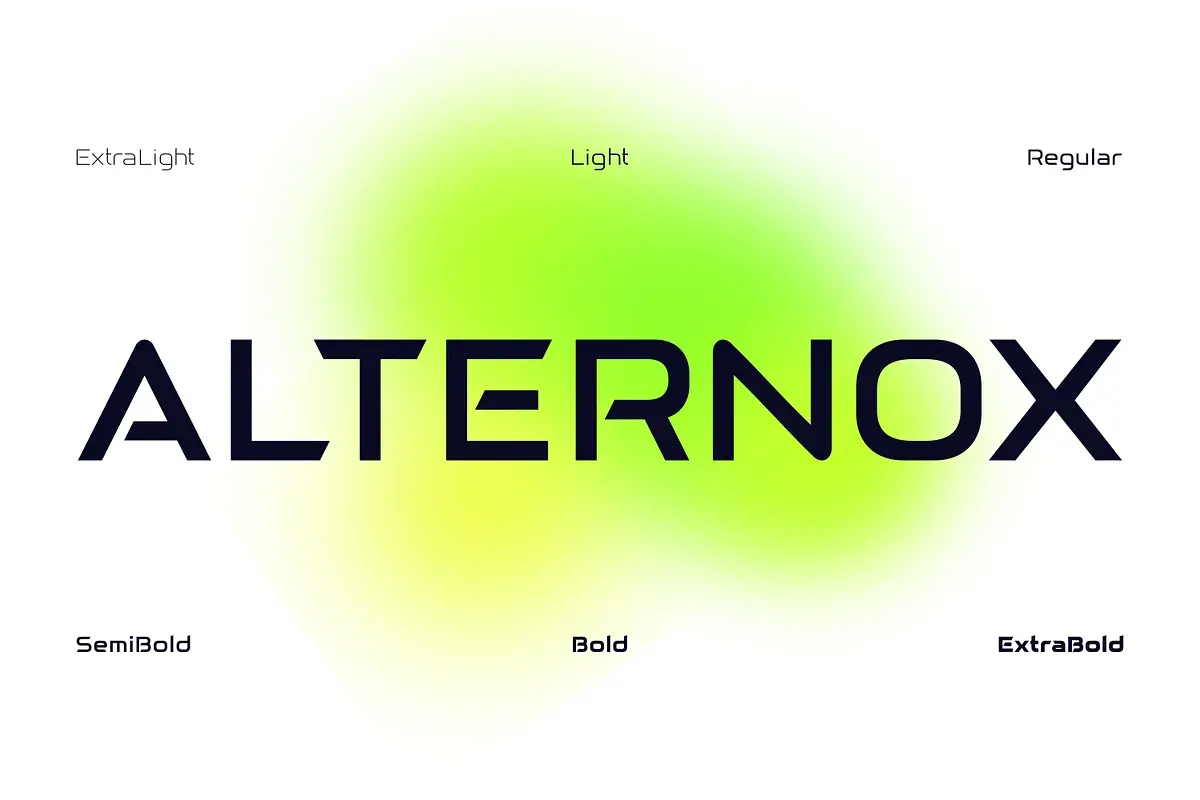
Alternox Fonts Family Free Download is a futuristic and tech-inspired typeface collection designed for bold, modern design projects. With sharp angles, clean lines, and a sleek digital aesthetic, Alternox is perfect for sci-fi posters, gaming graphics, tech branding, and innovative UI/UX interfaces.
This versatile font family includes multiple weights and styles, giving designers the flexibility to create strong visual hierarchies across print and digital media. Whether you're working on a cyberpunk-themed logo or a cutting-edge app interface, Alternox brings a powerful and professional edge to your typography.